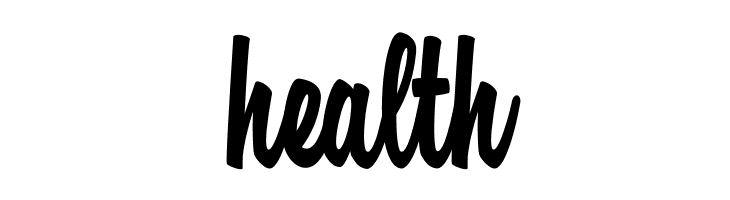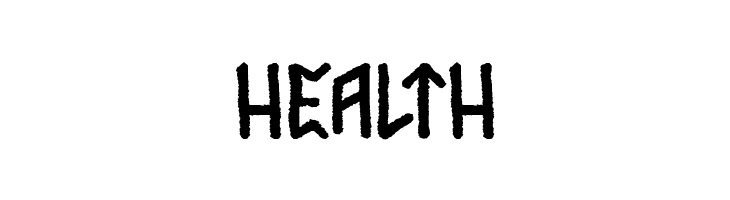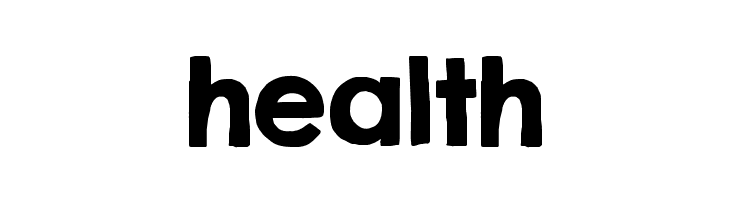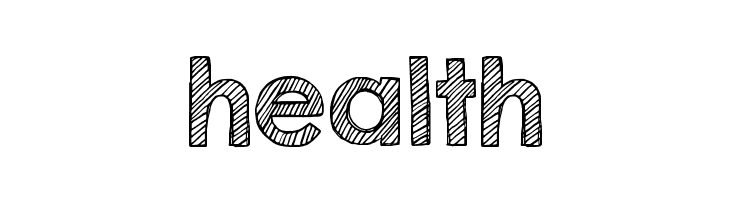
A playful, sketch-style font with bold, hand-drawn characters.
A playful, casual font combining bold uppercase and script-like lowercase letters.
A bold, decorative font with a 3D effect and intricate interior patterns.
An elegant, flowing script font with a calligraphic style.
A playful handwritten font with a casual and friendly appearance.
A classic, elegant cursive font with a calligraphic style.
Hand-drawn, rune-inspired display font with rough, angular strokes.
A bold, geometric font with strong, angular lines and a modern aesthetic.